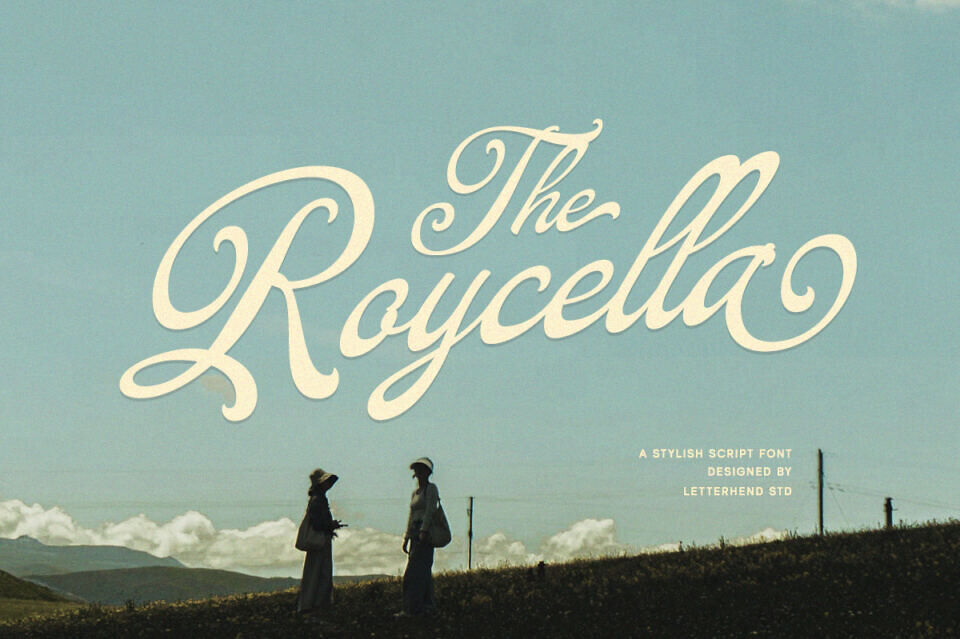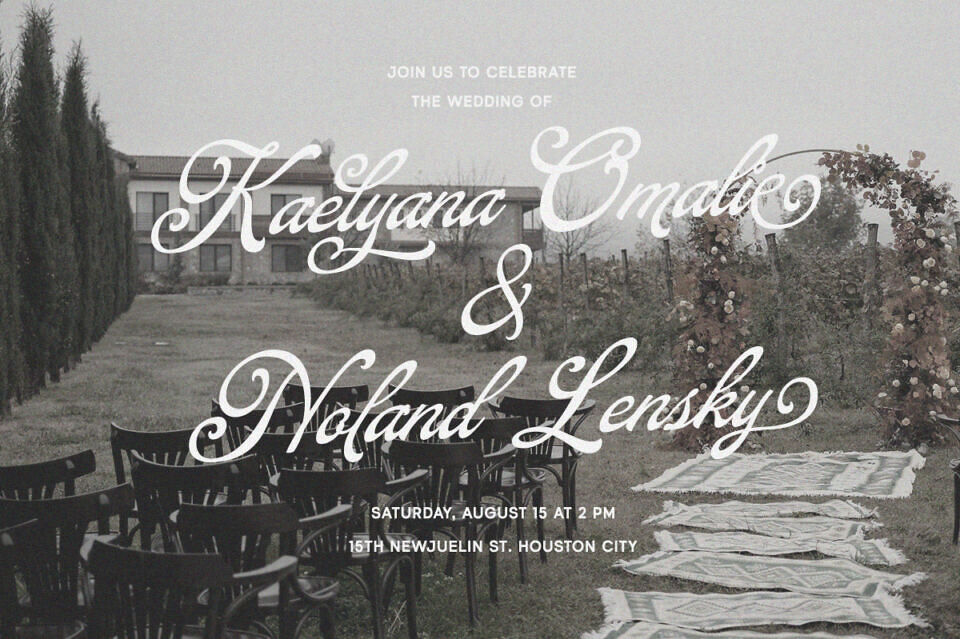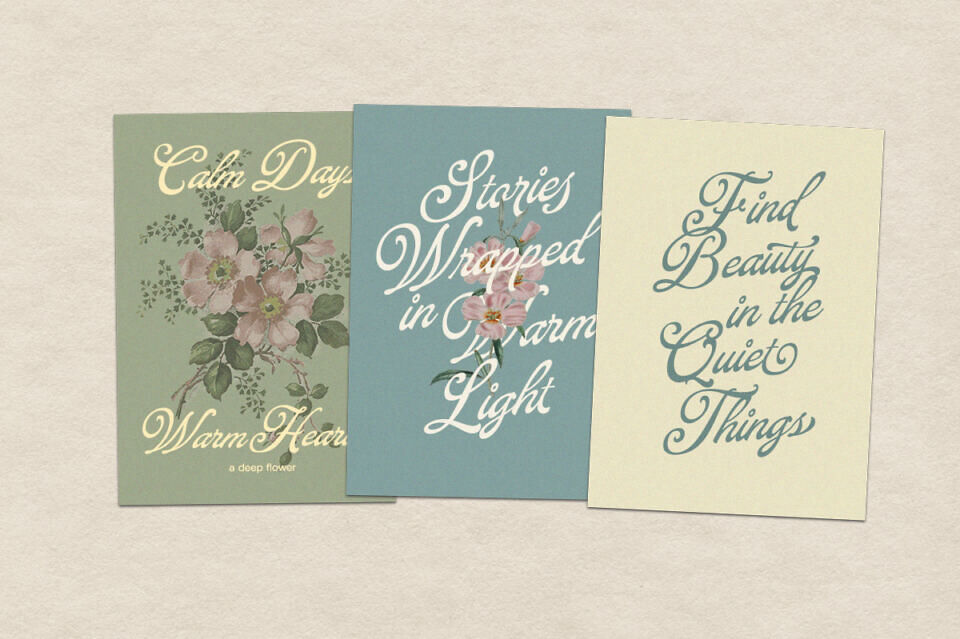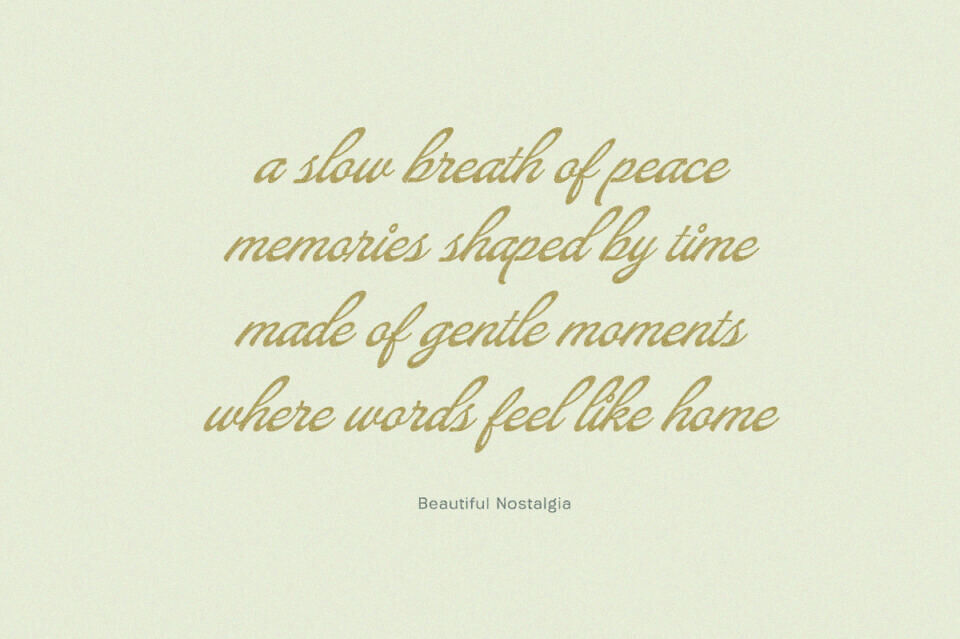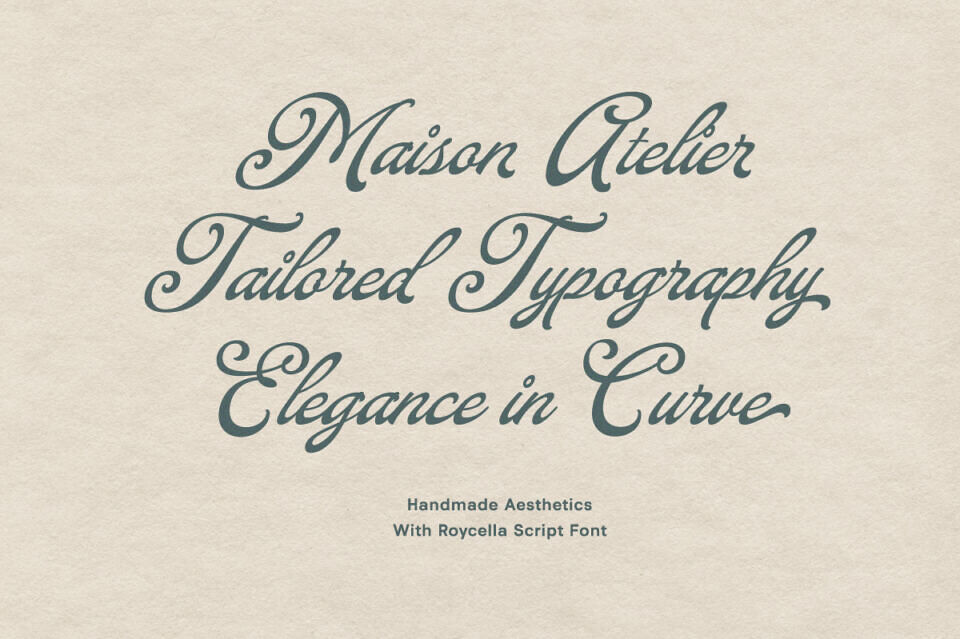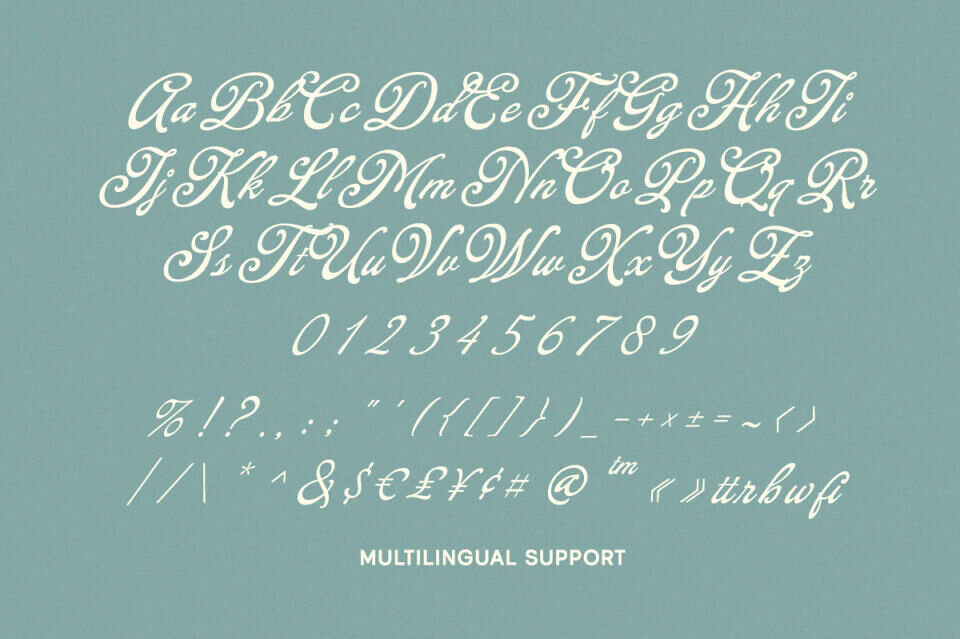
The Roycella is an elegant, vintage-inspired script font with sweeping curves, long flowing swashes, and a refined handwritten grace that feels cinematic and timeless. Its smooth strokes and romantic rhythm evoke classic title cards, countryside nostalgia, and warm storybook charm.